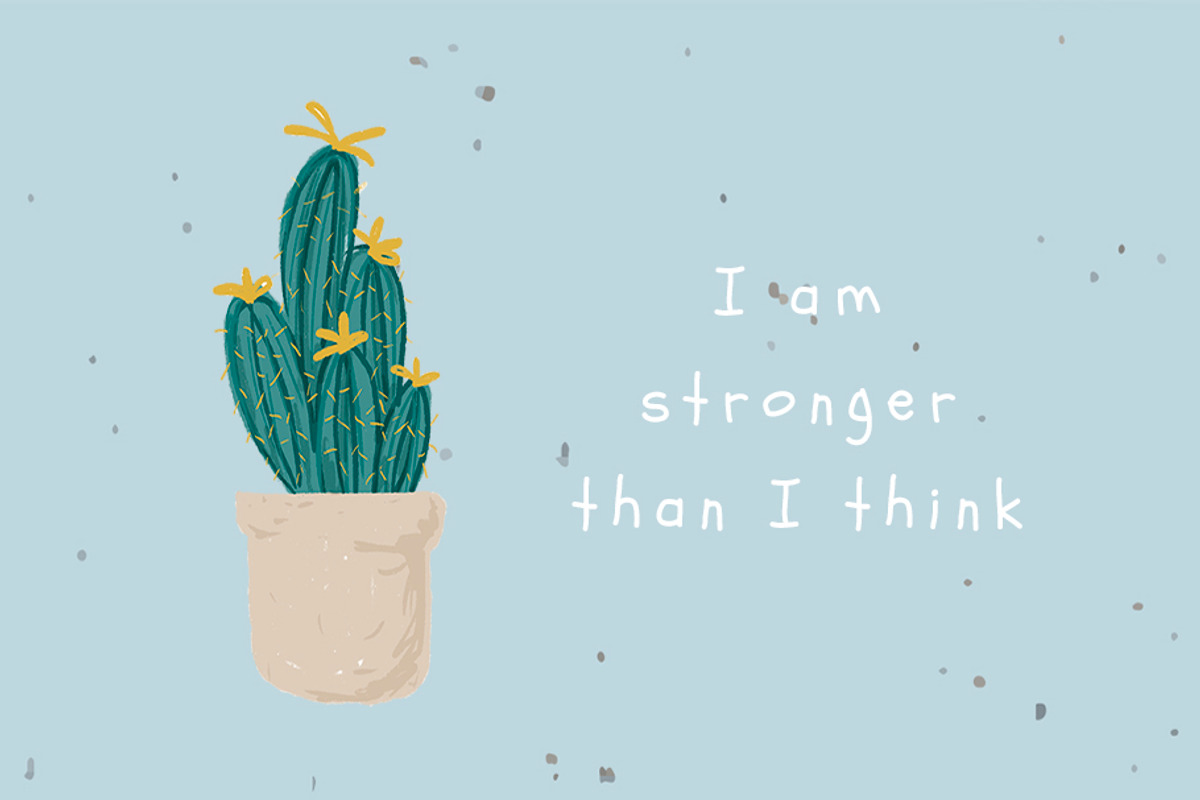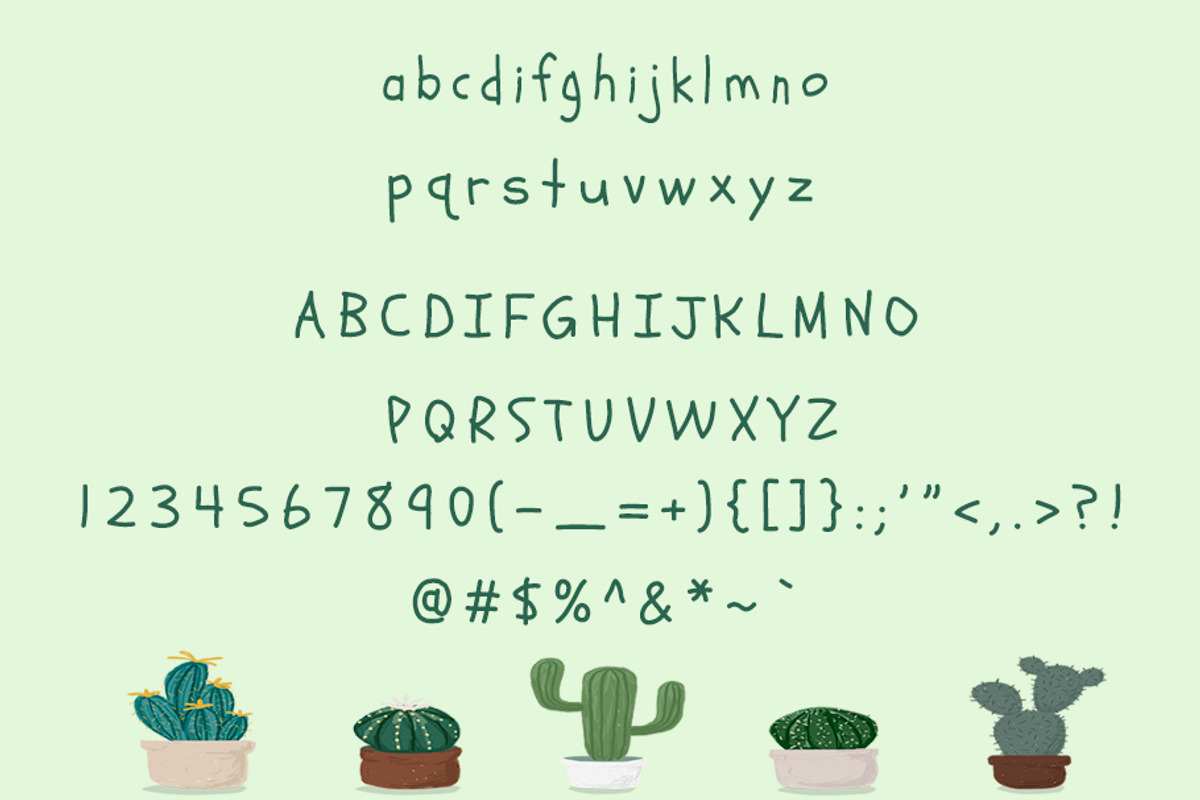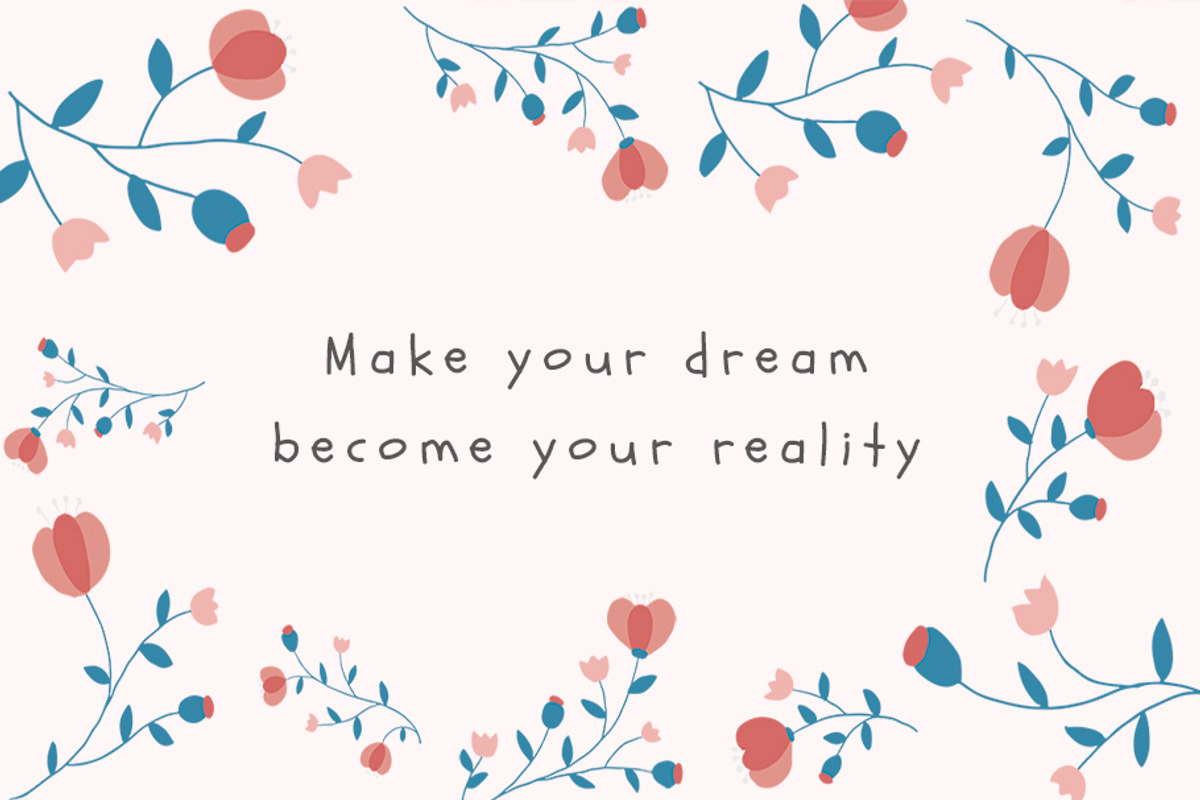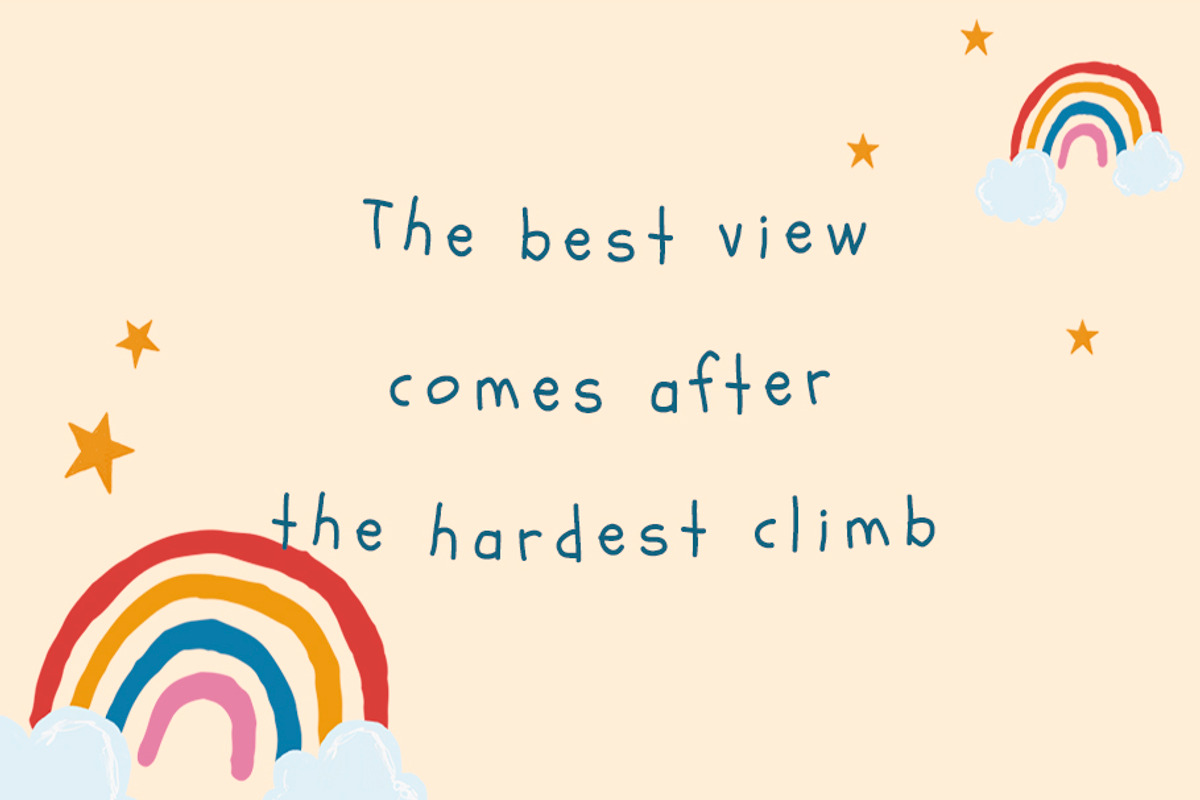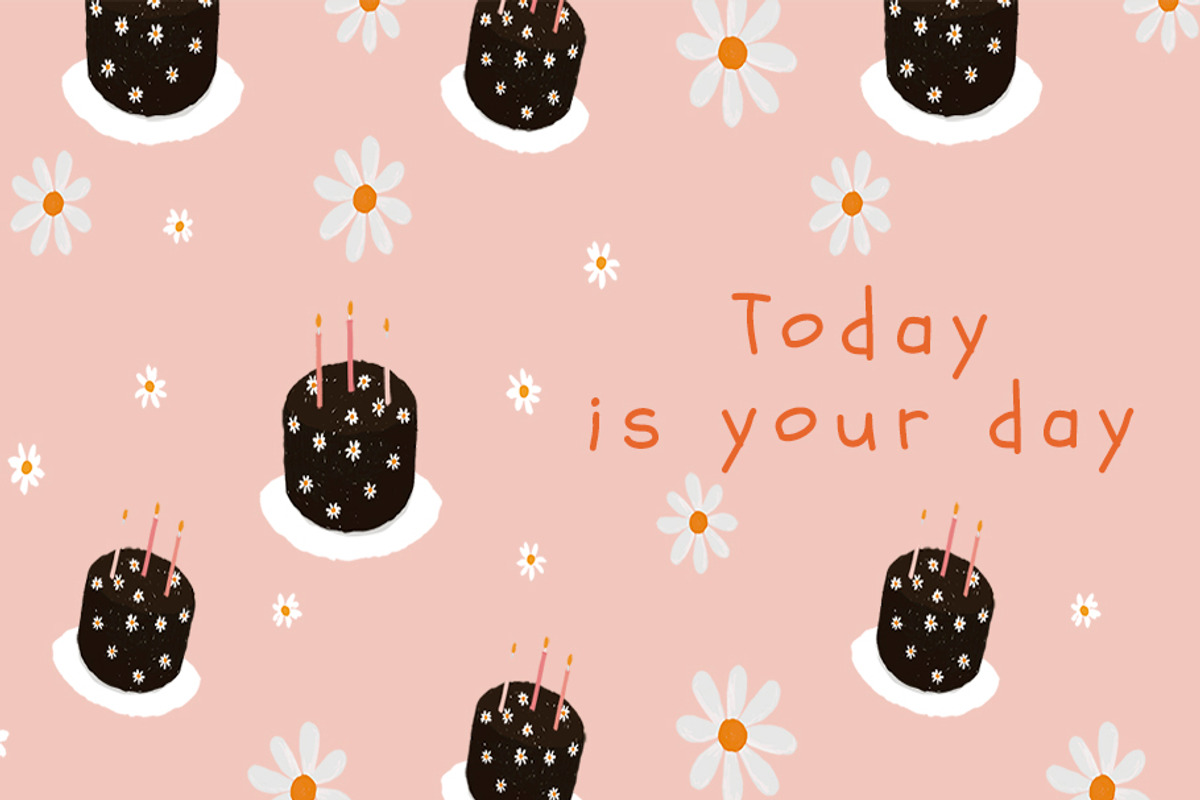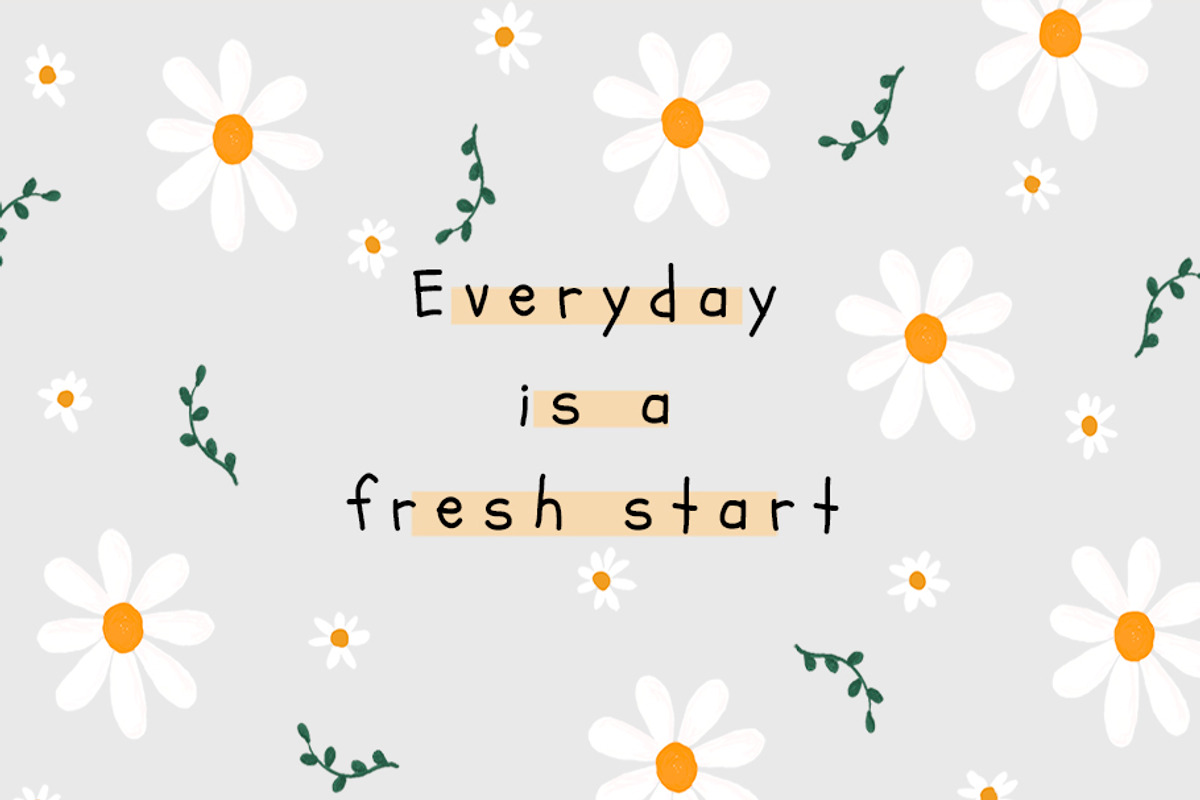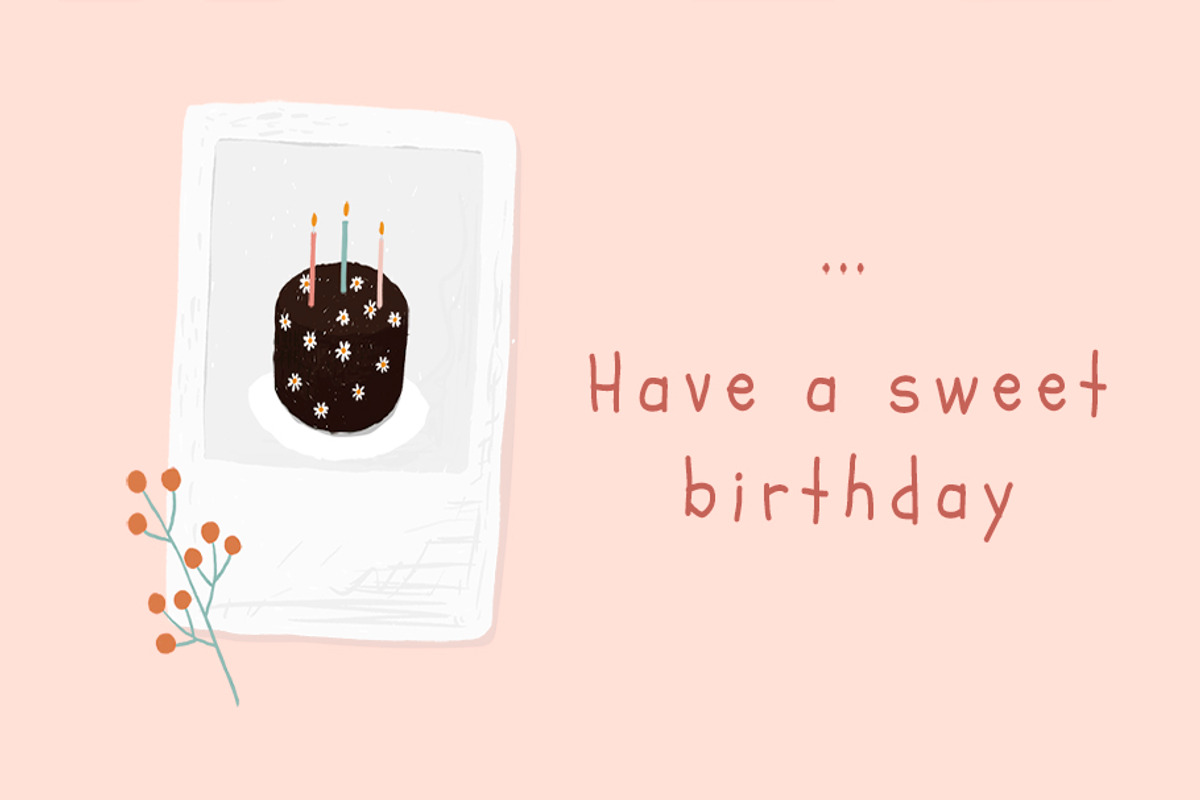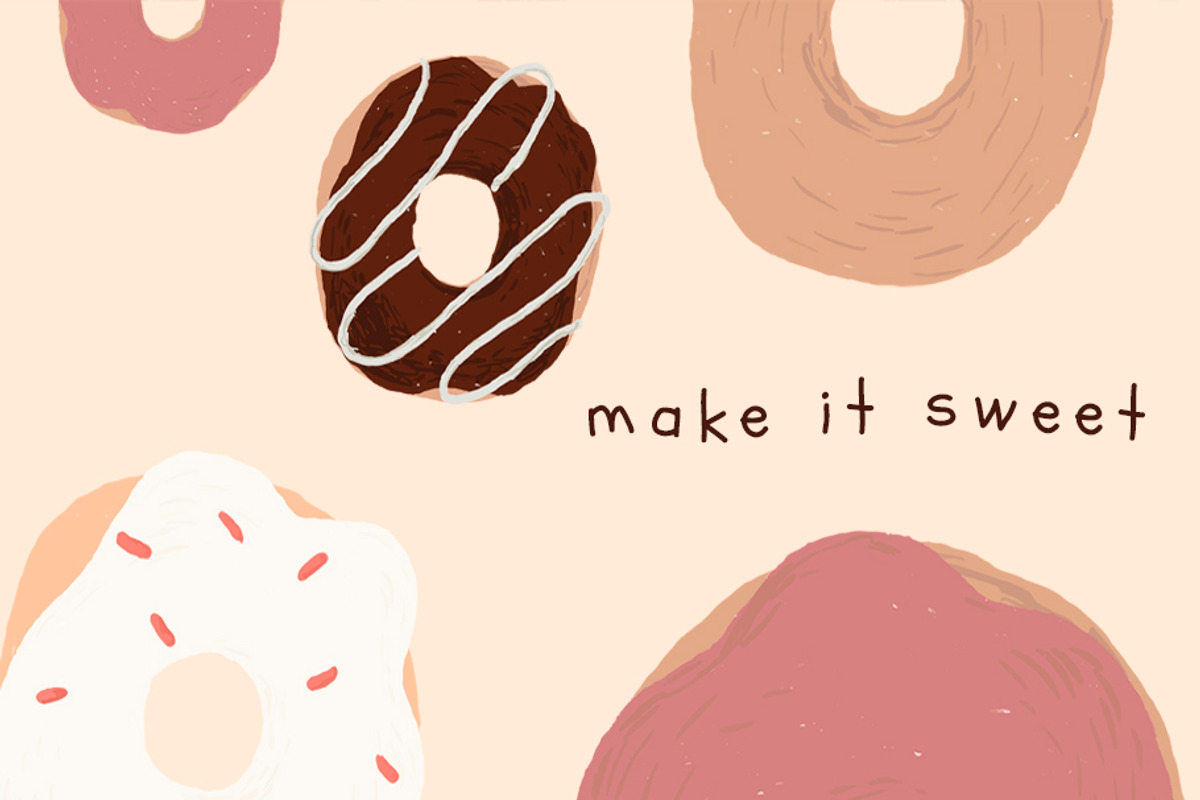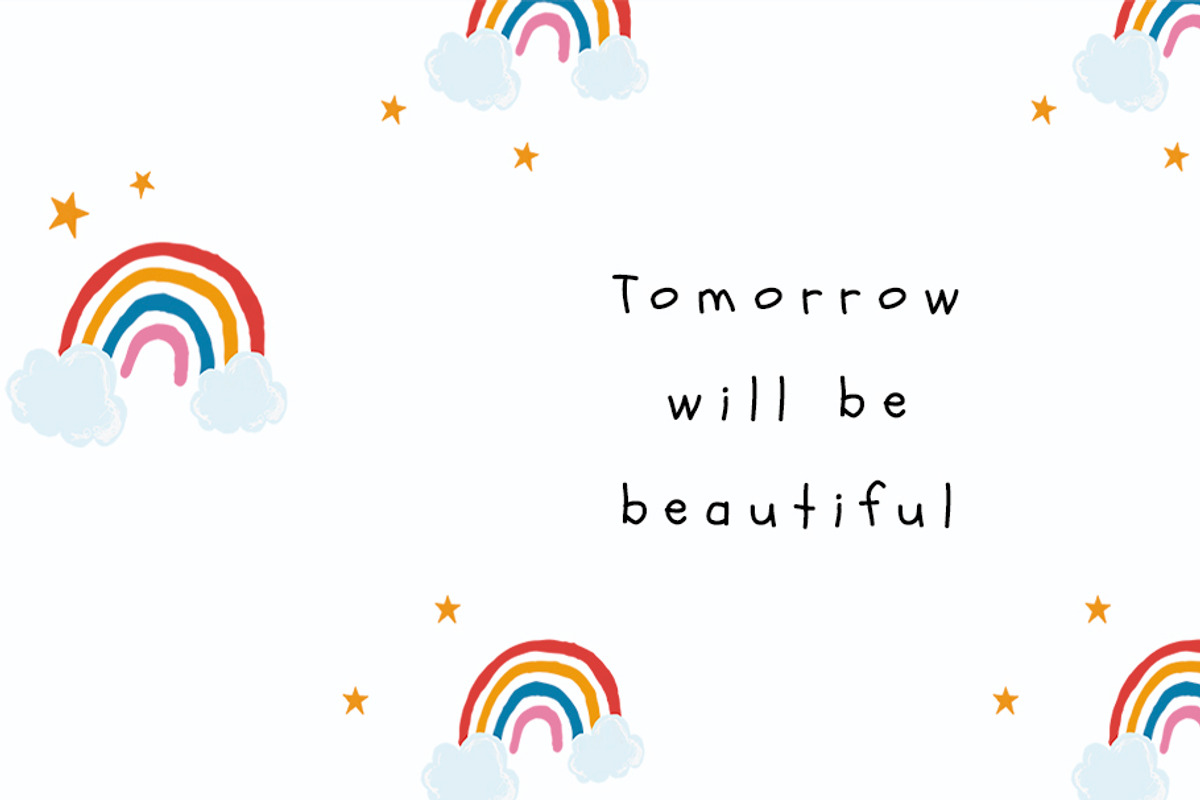
Birthday
Birthday - font written in children's handwriting. Perfect for postcards, congratulations. Also (as it seems to me) it will be useful for designers.
Birthday is also included full set of:
- All uppercase and lowercase letters
- multilingual characters
- numerals
- punctuation